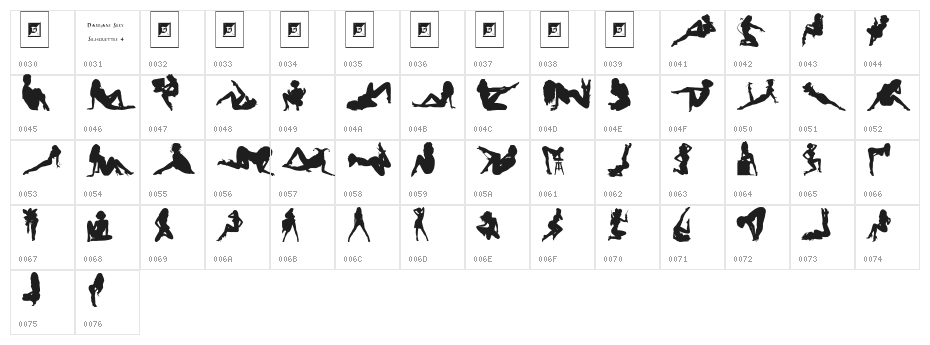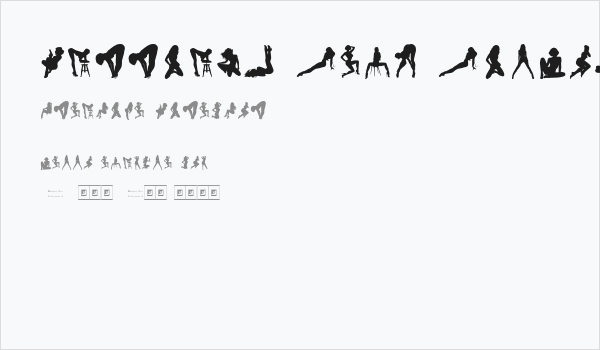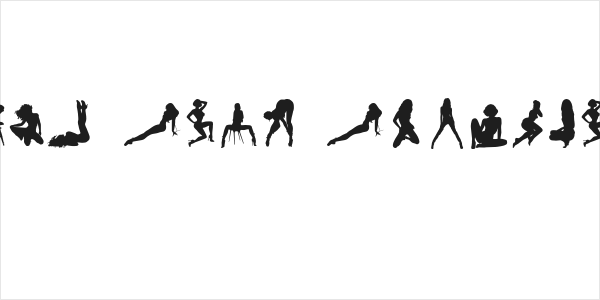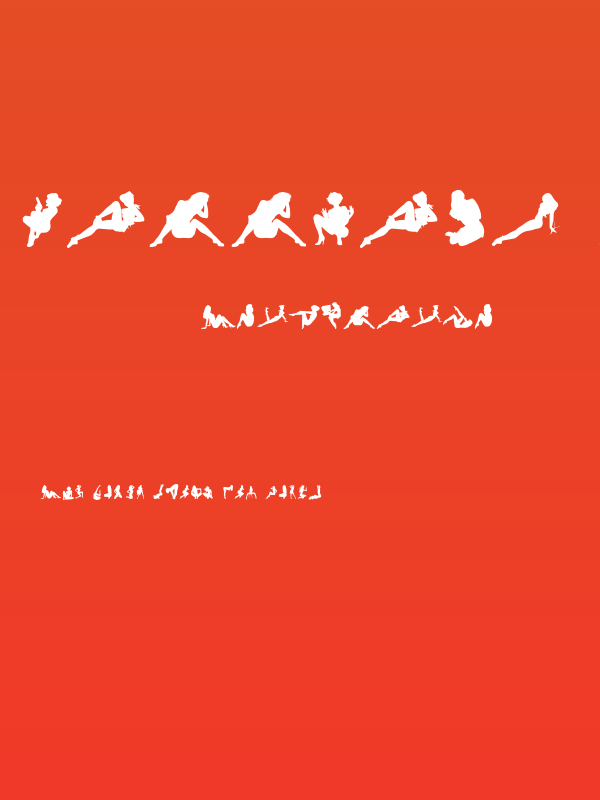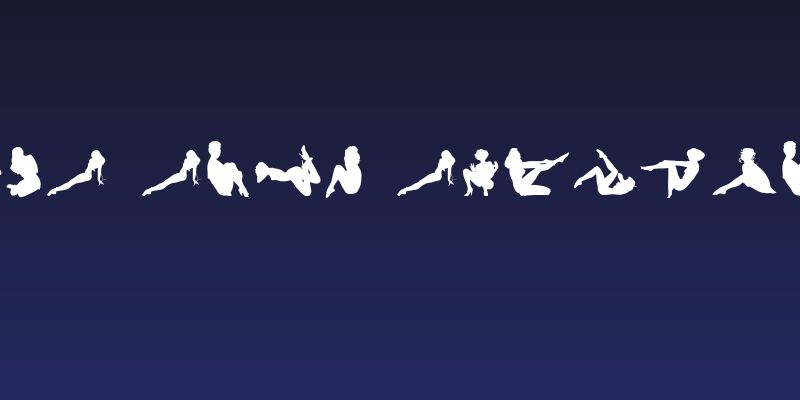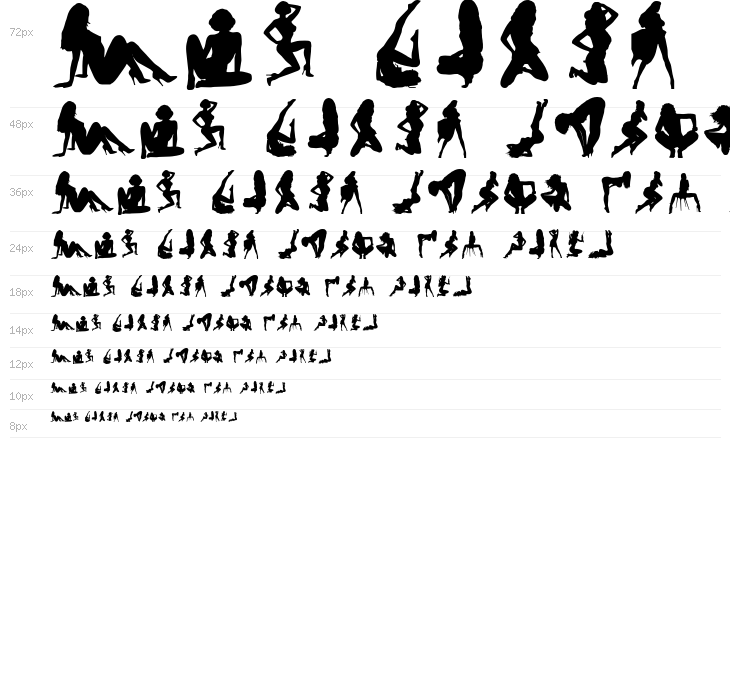
Darrians Sexy Silhouettes 4 Font
Darrians Sexy Silhouettes 4 Description
A decorative display set featuring black silhouettes of women in various seated, standing, and dynamic poses, designed as pictorial glyphs rather than traditional letterforms.
| Overall Style | Decorative, playful, thematic |
| Use Case | Logos, posters, novelty items, visual accents |
| Proposed Projects | Posters, party flyers, adult-themed event branding, novelty merchandise, visual art projects. |